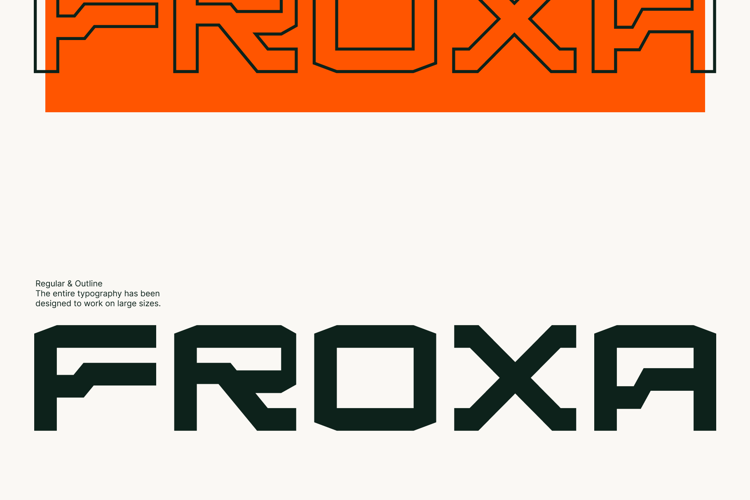
Froxa Font
About Froxa Font
5 font family styles
Extrabold Style
Semibold Style
Froxa is the newest typeface with a futuristic style, The entire typography has been designed to work on large sizes. This font ideal for designing merchandise, social media, marketing posts, product packaging & branding projects. Froxa supports uppercase, lowercase, numerals and punctuation.